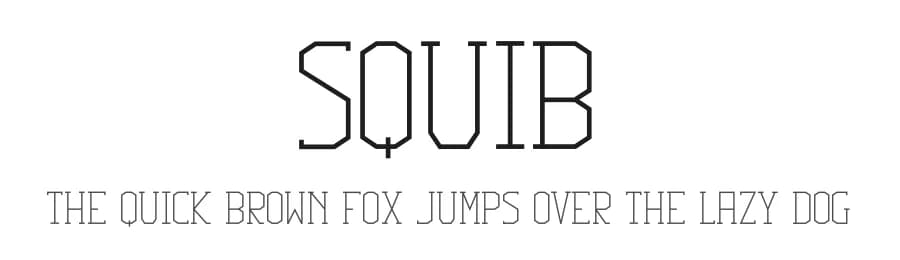
About Squib Font
Squib is a serif font designed by Heydon Pickering. It includes 169 glyphs, a regular weight, TTF (TrueType) format, and 201 languages. Squib is free to download; check the license details on this page before commercial use. Serif fonts like Squib work best for body text, editorial layouts, book covers, and classic branding.
Squib Font is a versatile serif font that works for both headings and body text. Pair it with a contrasting sans-serif or slab serif font to add visual interest and a clear distinction between titles and body copy.
Squib Font
Squib Font is a serif typeface by Heydon Pickering, ideal for logos, invitations, branding, and creative projects.